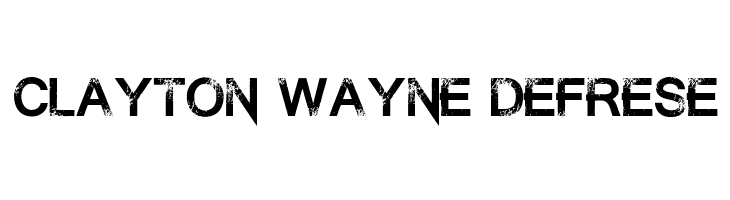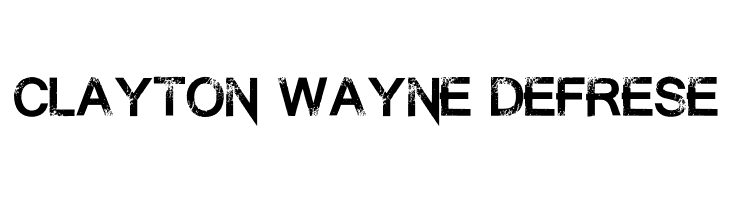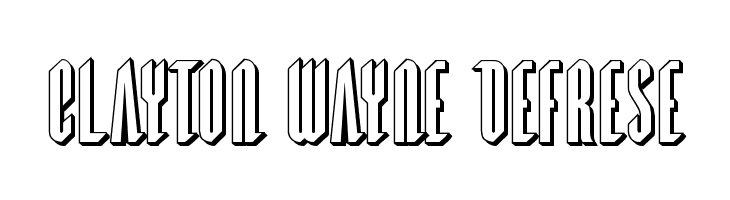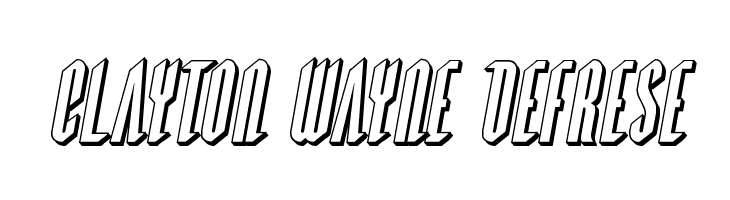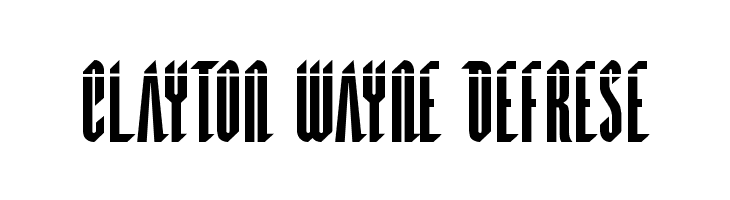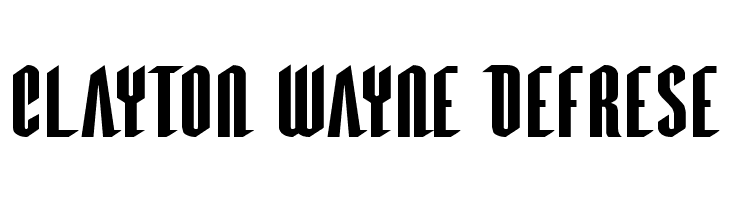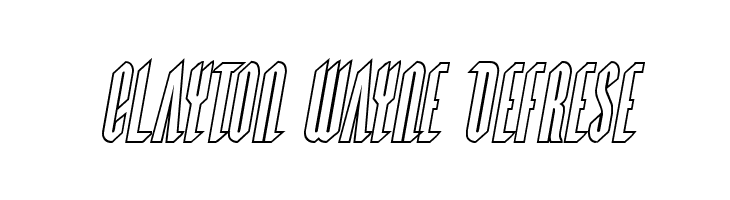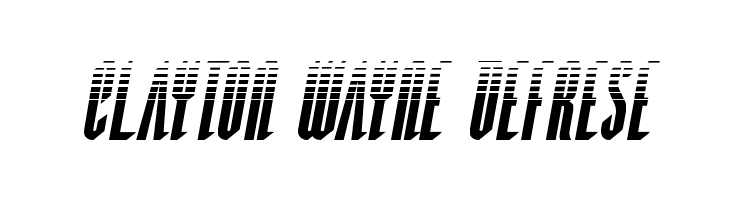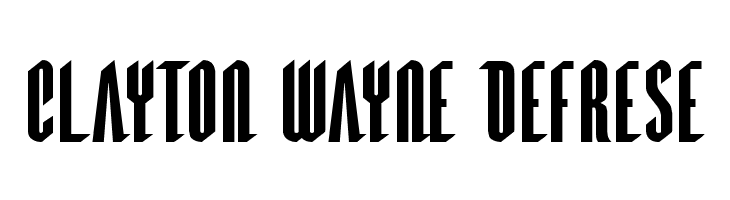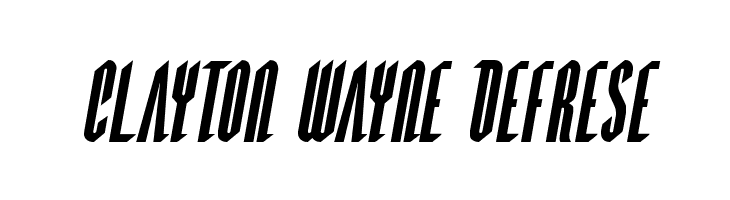
SummontheExecutioner-Regular Font
Font by Chris Vile
A bold, distressed font with a gritty, textured appearance.
Summon the Executioner Regular Font
Font by Chris Vile
A bold, distressed font with a gritty, industrial texture.
Devil Summoner Regular Font
Font by Daniel Zadorozny - www.iconian.com
A bold, gothic-inspired font with sharp, angular edges.
Devil Summoner Extra-Expanded Font
Font by Daniel Zadorozny - www.iconian.com
A bold, angular font with a geometric and striking design.
Summoners Font
Designed by Chequered Ink and has been downloaded 1,979 times.
A bold, geometric font with a futuristic and modern design.
Devil Summoner Expanded Font
Font by Daniel Zadorozny - www.iconian.com
A bold, gothic-inspired font with sharp, angular edges and a dramatic presence.
Devil Summoner Extra-Expanded Italic Font
Font by Daniel Zadorozny - www.iconian.com
A bold, italicized, and expanded font with a modern and dynamic style.
Devil Summoner 3D Font
Font by Daniel Zadorozny - www.iconian.com
A bold, 3D geometric font with angular, modern characters.
Devil Summoner Laser Font
Font by Daniel Zadorozny - www.iconian.com
A bold, angular font with a futuristic and condensed design.
Devil Summoner Condensed Font
Font by Daniel Zadorozny - www.iconian.com
A bold, condensed font with a gothic, dramatic style.
Devil Summoner 3D Italic Font
Font by Daniel Zadorozny - www.iconian.com
A bold, italicized 3D font with sharp angles and dynamic style.
Devil Summoner Italic Font
Font by Daniel Zadorozny - www.iconian.com
A bold, italic font with sharp angles and a dynamic, forward-leaning style.
Devil Summoner Outline Font
Font by Daniel Zadorozny - www.iconian.com
A bold, outlined font with sharp, angular edges and a geometric style.
Devil Summoner Leftalic Font
Font by Daniel Zadorozny - www.iconian.com
A bold, left-slanted font with sharp angles and a dynamic style.
Devil Summoner Outline Italic Font
Font by Daniel Zadorozny - www.iconian.com
Bold, italicized outline font with a dynamic and edgy style.
Devil Summoner Condensed Italic Font
Font by Daniel Zadorozny - www.iconian.com
A bold, condensed italic font with a modern, dynamic style.
Devil Summoner Halftone Italic Font
Font by Daniel Zadorozny - www.iconian.com
A bold, italicized font with a halftone effect, perfect for dynamic and edgy designs.
Devil Summoner Laser Italic Font
Font by Daniel Zadorozny - www.iconian.com
A bold, italic font with a futuristic and dynamic style.
Devil Summoner Expanded Italic Font